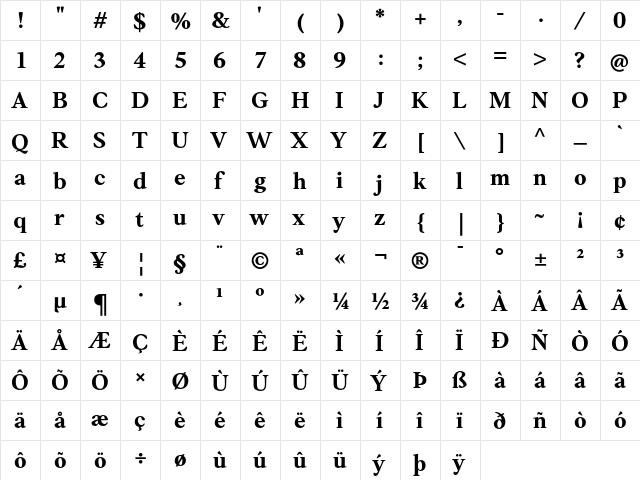
Anko Personal Use Bold
| Designer | Eko Bimantara |
Design Context for Anko Personal Use Typeface
Anko Personal Use is a composed and adaptable typeface that performs quietly and consistently across a wide range of design contexts. Its bold stroke weight gives it real presence on the page.